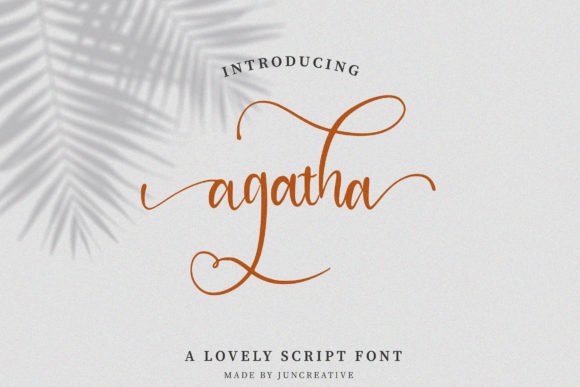
Discover the Timeless Elegance of Agatha Font
There’s something magical about stumbling upon the perfect font for your design project – the moment when everything clicks into place, and you know you’ve found the one. For many designers, that moment often involves a beautiful script font that adds a touch of whimsy and romance to their work. And that’s exactly what Agatha Font offers – a lovely, elegant script font that can instantly elevate your designs and leave a lasting impression.
As a versatile font, Agatha Font is perfect for designers looking to add a feminine touch to their projects, from wedding invitations to fashion magazines. Its delicate lines and flowing curves make it an excellent choice for creating a sense of sophistication and refinement. Whether you’re a seasoned designer or just starting out, Agatha Font is an invaluable tool that can help you achieve your creative vision.
- Unique Characteristics: Agatha Font features a classic, elegant design with subtle nuances in letterform shapes and a warm, inviting feel.
Designer Review: Agatha Font
As a designer, I’ve had the opportunity to work with numerous fonts, and Agatha Font is one that caught my attention. Here’s my honest review.
- Unique and elegant style – Agatha Font has a distinctive, vintage flair that can add a touch of sophistication to any design project.
- High-quality typography – The font’s clean lines and smooth curves make it perfect for body text and headings.
- Good legibility – Agatha Font is easy to read, even at smaller font sizes, making it suitable for a wide range of applications.
- Limited font weights – Agatha Font only comes in a few weights, which may limit its versatility in certain design projects.
- No bold or italic options – While the font’s elegance is part of its charm, it can be restrictive when trying to convey emphasis or tone.
- Not ideal for display headings – Agatha Font is best suited for body text and smaller headings, as its subtlety may get lost in larger display contexts.
Agatha Font is a beautiful, high-quality font that excels in subtle, elegant designs. While it may have some limitations, it’s perfect for projects where a refined, vintage aesthetic is desired. With a bit of creativity and flexibility, Agatha Font can be a valuable addition to any designer’s toolkit.
Agatha Font is a versatile and elegant font, suitable for a variety of applications, including:
– Luxury branding and marketing materials
– High-end publications and magazines
– Elegant digital typography
– To get the most out of Agatha Font, use it in combination with a contrasting background and minimalistic design elements.